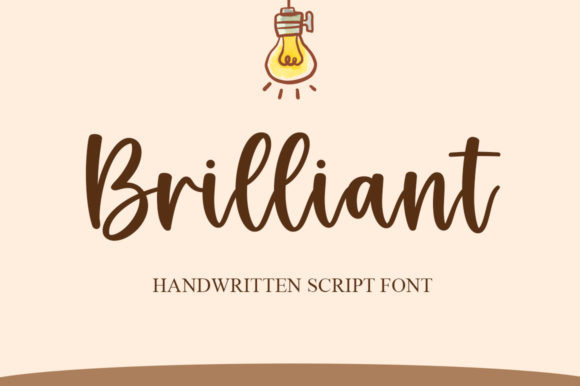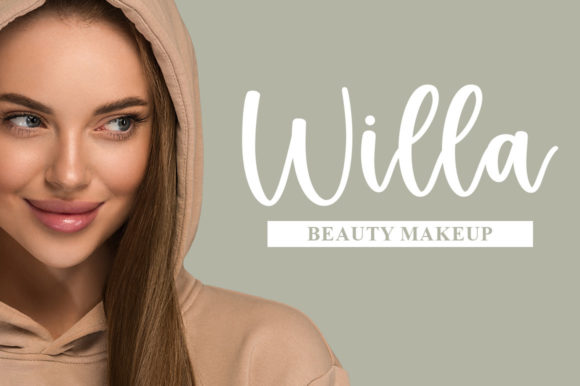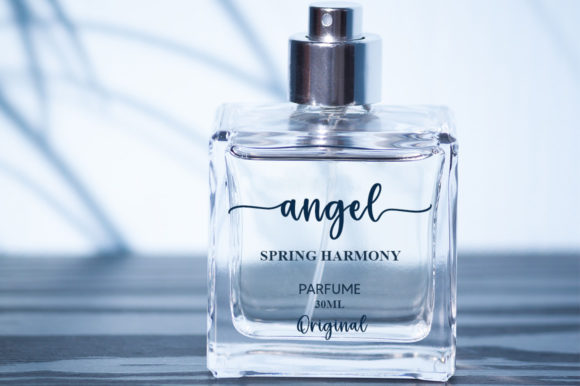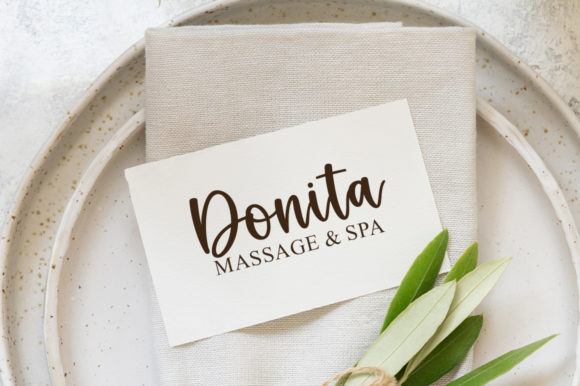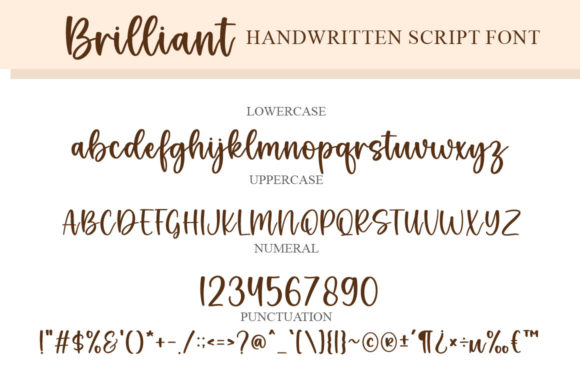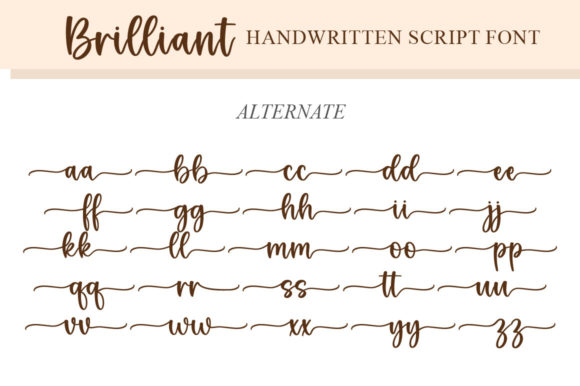
Brilliant Font
About Brilliant Font
Brilliant is a magical handwritten font. It looks ravishing on invitations, thank you cards, quotes, greeting cards, logos, business cards and every other design which needs a customized touch. This font is PUA encoded which means you can access all of the glyphs and swashes with ease!